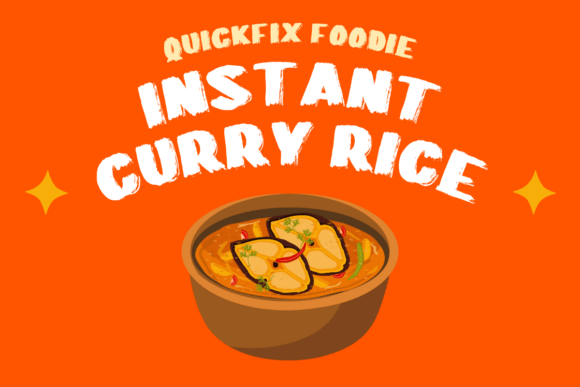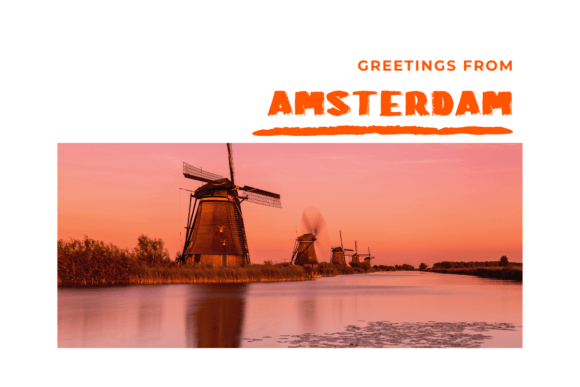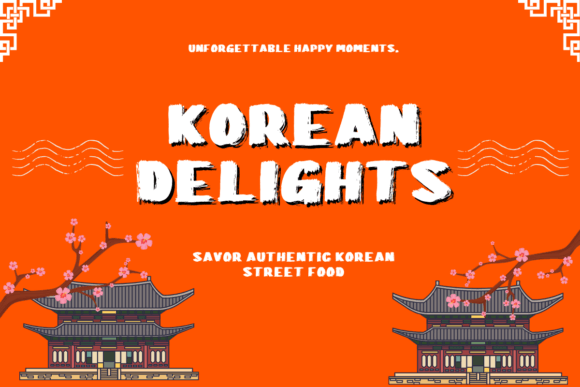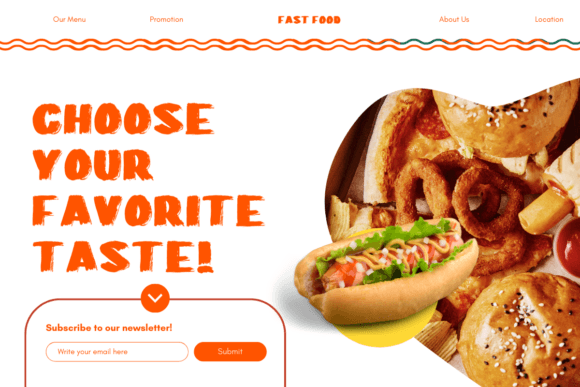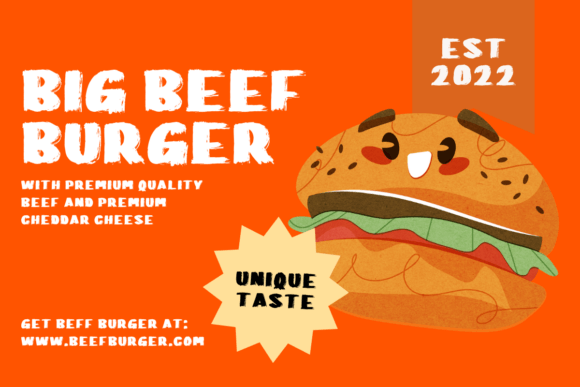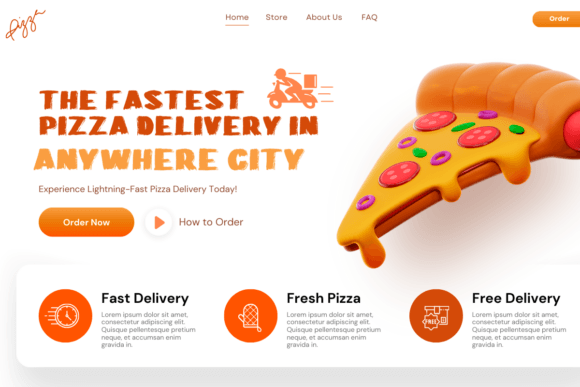
Unleash Your Creativity with Burning Hunger: A Bold Brush Display Font
Are you tired of using the same old fonts for your designs? Do you want to make a bold statement and add a touch of personality to your work? Look no further than Burning Hunger, a brush display font that is bold, all-caps, and sure to turn heads. Inspired by dynamic brush strokes, this font is perfect for designers and crafters who want to add a strong and passionate visual impact to their work.
The Power of Brush Texture
Burning Hunger is more than just a font – it’s an artistic expression. With its unique brush texture, this font delivers a sense of energy and movement that’s hard to replicate with traditional fonts. The dynamic brush strokes used to create Burning Hunger give it a hand-crafted feel that’s perfect for designs that need a personal touch. Whether you’re creating posters, banners, headlines, or social media graphics, Burning Hunger is the perfect choice.
Burning Hunger is designed with designers and crafters in mind. Its bold and all-caps style makes it perfect for creating eye-catching headlines and titles, while its artistic brush texture adds a touch of personality to any design. Whether you’re a professional designer or a DIY crafter, Burning Hunger is a versatile font that can be used for a wide range of projects, including:
- Banners and signs
- Headlines and titles
Make a Bold Statement
Burning Hunger is not just a font – it’s a statement. Its bold and passionate style is designed to grab attention and make a lasting impression. Whether you’re trying to promote a product, service, or idea, Burning Hunger is the perfect choice. Its unique brush texture and dynamic brush strokes give it a sense of energy and movement that’s sure to engage your audience and leave a lasting impression.
Key Features of Burning Hunger
So what makes Burning Hunger so special? Here are just a few of its key features:
- Bold and all-caps style: Burning Hunger is designed to make a statement, with a bold and all-caps style that’s perfect for headlines and titles.
- Artistic brush texture: The unique brush texture used to create Burning Hunger gives it a hand-crafted feel that’s perfect for designs that need a personal touch.
- Dynamic brush strokes: The dynamic brush strokes used to create Burning Hunger give it a sense of energy and movement that’s hard to replicate with traditional fonts.
- Perfect for designers and crafters: Burning Hunger is designed with designers and crafters in mind, making it perfect for a wide range of projects.
Get Ready to Unleash Your Creativity
In conclusion, Burning Hunger is a bold and artistic brush display font that’s perfect for designers and crafters who want to add a strong and passionate visual impact to their work. With its unique brush texture, dynamic brush strokes, and bold and all-caps style, Burning Hunger is sure to turn heads and make a lasting impression. So if you’re looking for a font that will help you make a bold statement and unleash your creativity, look no further than Burning Hunger.